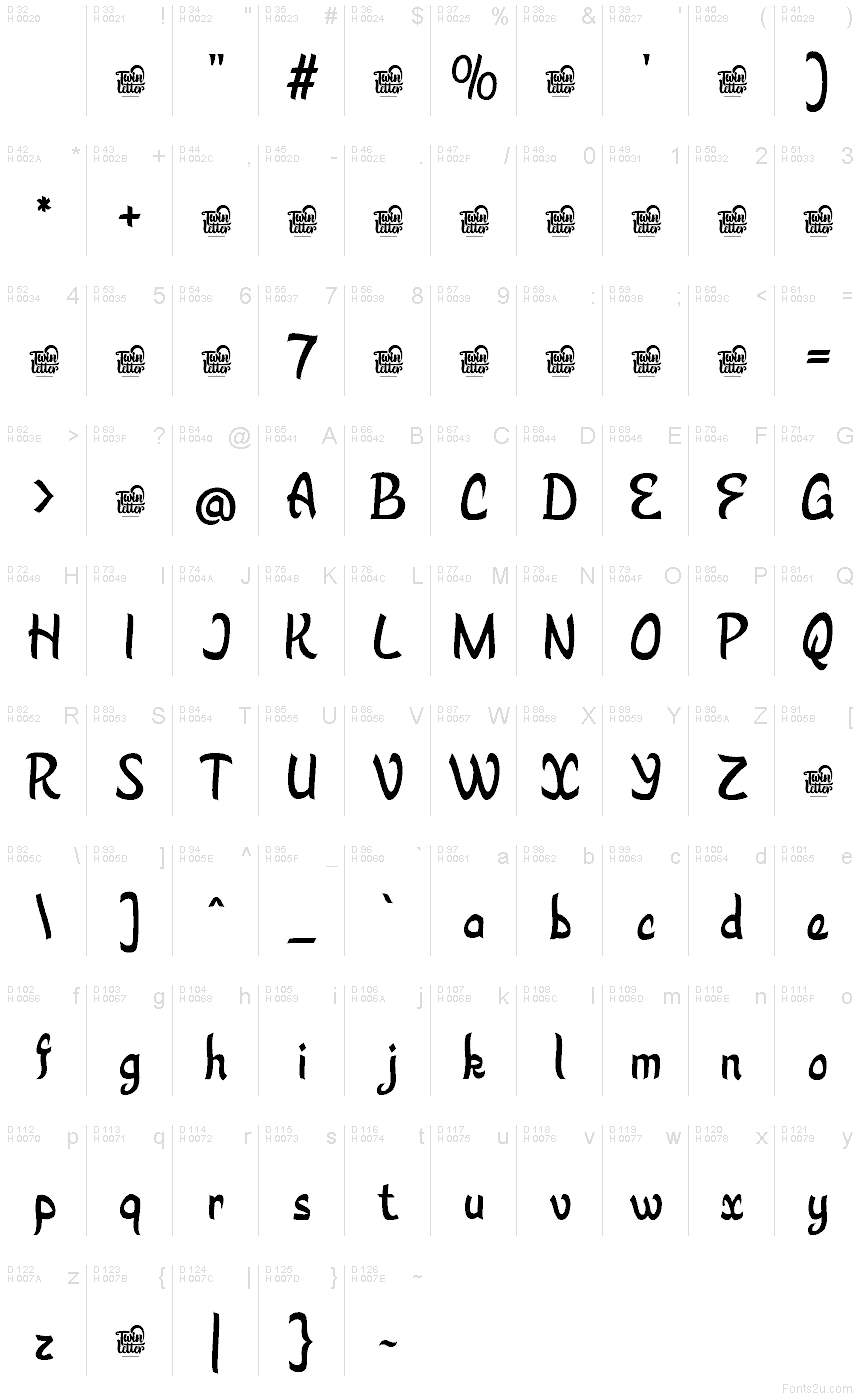
Shokhiful Trial Regular
Shokhiful font by Twinletter is a free bold Arabic-style display font that channels inky, hand-drawn energy into sculpted, flowing letterforms. It stands out with tapering strokes, soft brush edges, and a lively rhythm that hints at calligraphy without losing legibility. Subtle baseline lift and flicked terminals give it movement, so headlines feel warm, human, and a little dramatic.
Using Shokhiful, your titles grab attention on restaurant menus, Ramadan or Eid posters, cultural event branding, spice or tea packaging, travel guides, boutique logos, and expressive social posts. The generous counters and organic contrast hold up at large sizes. For balance, pair this free font with a clean geometric sans for body copy, and let Shokhiful carry the headline voice.